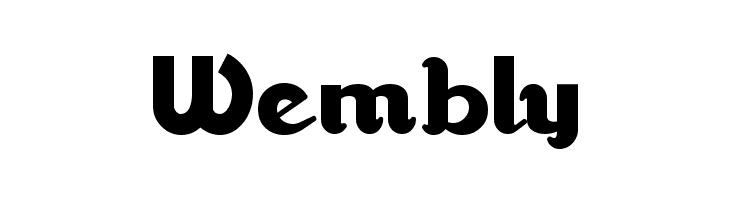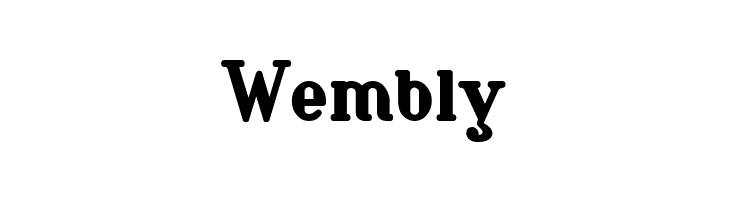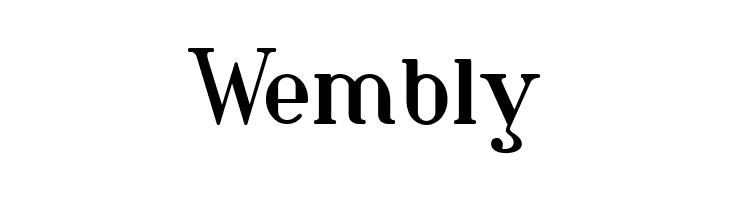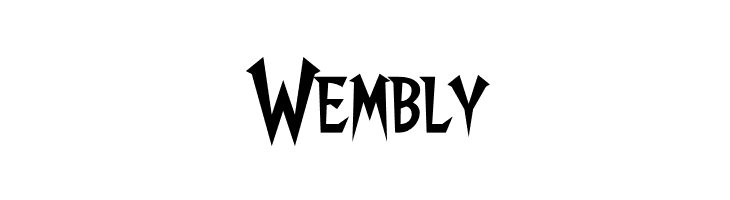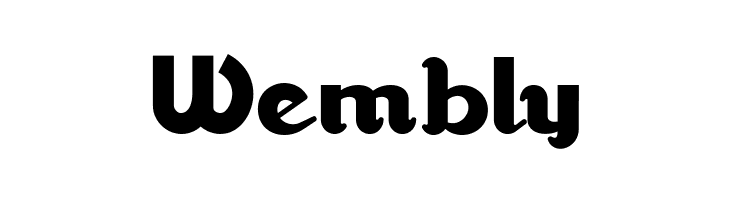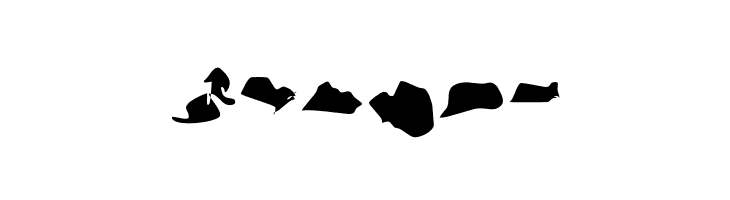
A bold, playful font with chunky, rounded characters and a whimsical style.
A bold, playful font with rounded strokes and a retro flair.
A bold, angular font with sharp edges and a dynamic, aggressive style.
A bold, angular font with sharp edges and dynamic styling.
A playful, handwritten font with smooth curves and whimsical style.
A bold, modern sans-serif font with clean lines and excellent readability.
A bold, modern sans-serif font with strong, clean lines and uniform strokes.
A bold, extended font with thick strokes and a modern style.
A bold, extended, and oblique font with a modern and dynamic style.
A bold, narrow typeface with strong, uniform strokes for impactful design.
Bold, narrow, and oblique font with high contrast and tight spacing.
A bold, oblique font with a dynamic and energetic style.
A bold, modern typeface with thick, uniform strokes and clean lines.
A bold, extended typeface ideal for impactful headlines and display use.
A bold, extended, and oblique font with a modern and dynamic style.
A bold, narrow typeface with strong lines and a modern aesthetic.
Bold, narrow, and oblique font with a modern, dynamic style.
A bold and oblique font with a strong, dynamic presence.
A modern, bold sans-serif font with clean lines and excellent readability.
A modern, oblique font with extended width and consistent stroke width for a sleek, professional look.
A bold, narrow, and modern typeface with consistent stroke width.
A sleek, narrow, and oblique font with a modern and dynamic style.
A modern, oblique font with bold, consistent strokes and excellent readability.
A bold, modern font with thick strokes and strong presence.
A bold, ultra-extended font with thick strokes and wide letterforms.
A bold, ultra-extended oblique font with a modern and dynamic style.
A bold, ultra-narrow font with a modern and impactful style.
A bold, ultra-narrow, oblique font with a modern and dynamic style.
A bold, italicized font with high contrast and a modern style.
An abstract, graffiti-like font with bold, irregular shapes.
A bold serif font with a modern twist, featuring sharp serifs and playful curves.
A vintage serif font with bold, elegant characters and unique flourishes.
A bold, rounded serif font with strong, assertive characters and high contrast.
A bold, vintage-inspired serif font with thick strokes and a compact design.